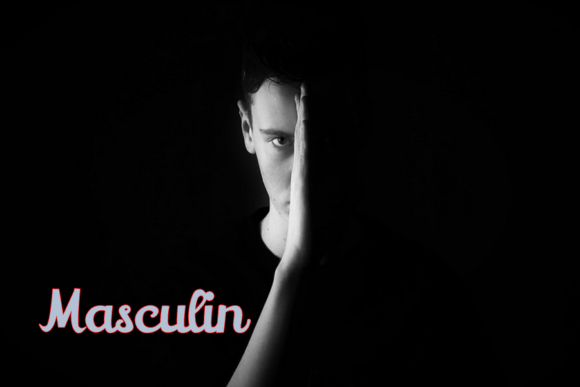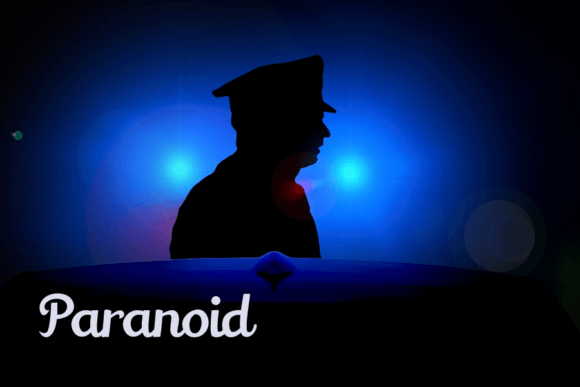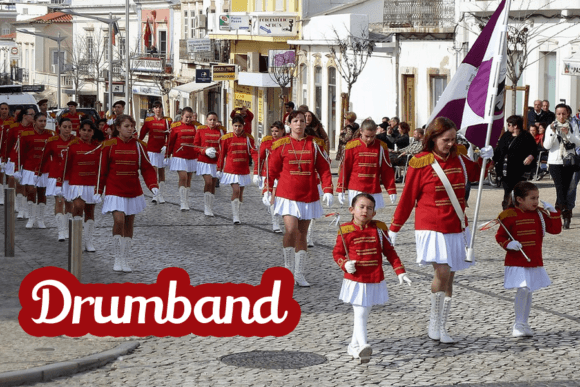
Introducing Barbeque Font: The Sweet and Cute Handwritten Font for Your Creative Projects
Are you looking for a font that can add a touch of sweetness and cuteness to your designs? Look no further than Barbeque Font! This beautiful handwritten font is perfect for creating a wide range of projects, from wedding invitations and stationery to social media posts and more. In this article, we’ll take a closer look at Barbeque Font and explore its features, uses, and benefits.
What is Barbeque Font?
Barbeque Font is a sweet and cute handwritten font that is designed to bring a touch of elegance and sophistication to your designs. Its incredibly versatile style makes it perfect for a wide range of projects, from formal events like weddings and parties to casual social media posts and craft projects.
Features of Barbeque Font
So, what makes Barbeque Font so special? Here are just a few of its key features:
- Sweet and Cute Handwritten Style: Barbeque Font has a beautiful, handwritten style that is both sweet and cute. Its unique lettering and flowing curves make it perfect for creating eye-catching designs that stand out from the crowd.
- Incredibly Versatile: Whether you’re creating wedding invitations, social media posts, or craft projects, Barbeque Font is the perfect choice. Its versatile style can be used for a wide range of projects and can be easily paired with other fonts to create a unique look.
- Elegant and Sophisticated: Despite its sweet and cute style, Barbeque Font is also elegant and sophisticated. Its flowing curves and beautiful lettering make it perfect for formal events and projects.
Uses of Barbeque Font
So, what can you use Barbeque Font for? The possibilities are endless! Here are just a few ideas to get you started:
- Wedding Invitations: Create beautiful wedding invitations that set the tone for your special day. Barbeque Font is perfect for creating elegant and sophisticated wedding invitations that will impress your guests.
- Stationery: Add a touch of elegance to your stationery with Barbeque Font. From notecards to journals, this font is perfect for creating beautiful and unique stationery.
- Social Media Posts: Create eye-catching social media posts that stand out from the crowd. Barbeque Font is perfect for creating beautiful and engaging social media posts that will grab the attention of your followers.
- Craft Projects: From scrapbooking to DIY crafts, Barbeque Font is perfect for adding a touch of sweetness and cuteness to your craft projects.
Benefits of Using Barbeque Font
So, why should you choose Barbeque Font for your next project? Here are just a few benefits of using this beautiful font:
- Easy to Read: Barbeque Font is easy to read, even at small sizes. This makes it perfect for creating designs that need to be clear and legible.
- Highly Versatile: Whether you’re creating formal or informal designs, Barbeque Font is the perfect choice. Its versatile style can be used for a wide range of projects and can be easily paired with other fonts.
- Unique and Eye-Catching: Barbeque Font is a unique and eye-catching font that will add a touch of sweetness and cuteness to your designs. Its beautiful lettering and flowing curves make it perfect for creating designs that stand out from the crowd.
Tips for Using Barbeque Font
Here are a few tips for using Barbeque Font in your designs:
- Pair it with Other Fonts: Barbeque Font can be easily paired with other fonts to create a unique look. Try pairing it with a bold font for a striking contrast.
- Use it for Headings and Titles: Barbeque Font is perfect for creating beautiful headings and titles. Use it to add a touch of elegance and sophistication to your designs.
- Experiment with Colors: Barbeque Font looks great in a wide range of colors. Experiment with different colors to find the perfect one for your design.
In conclusion, Barbeque Font is a beautiful and versatile handwritten font that is perfect for creating a wide range of projects. Its sweet and cute style, elegant and sophisticated curves, and highly versatile design make it a great choice for designers and crafters. Whether you’re creating wedding invitations, social media posts, or craft projects, Barbeque Font is the perfect choice. So why not give it a try and see what amazing designs you can create?